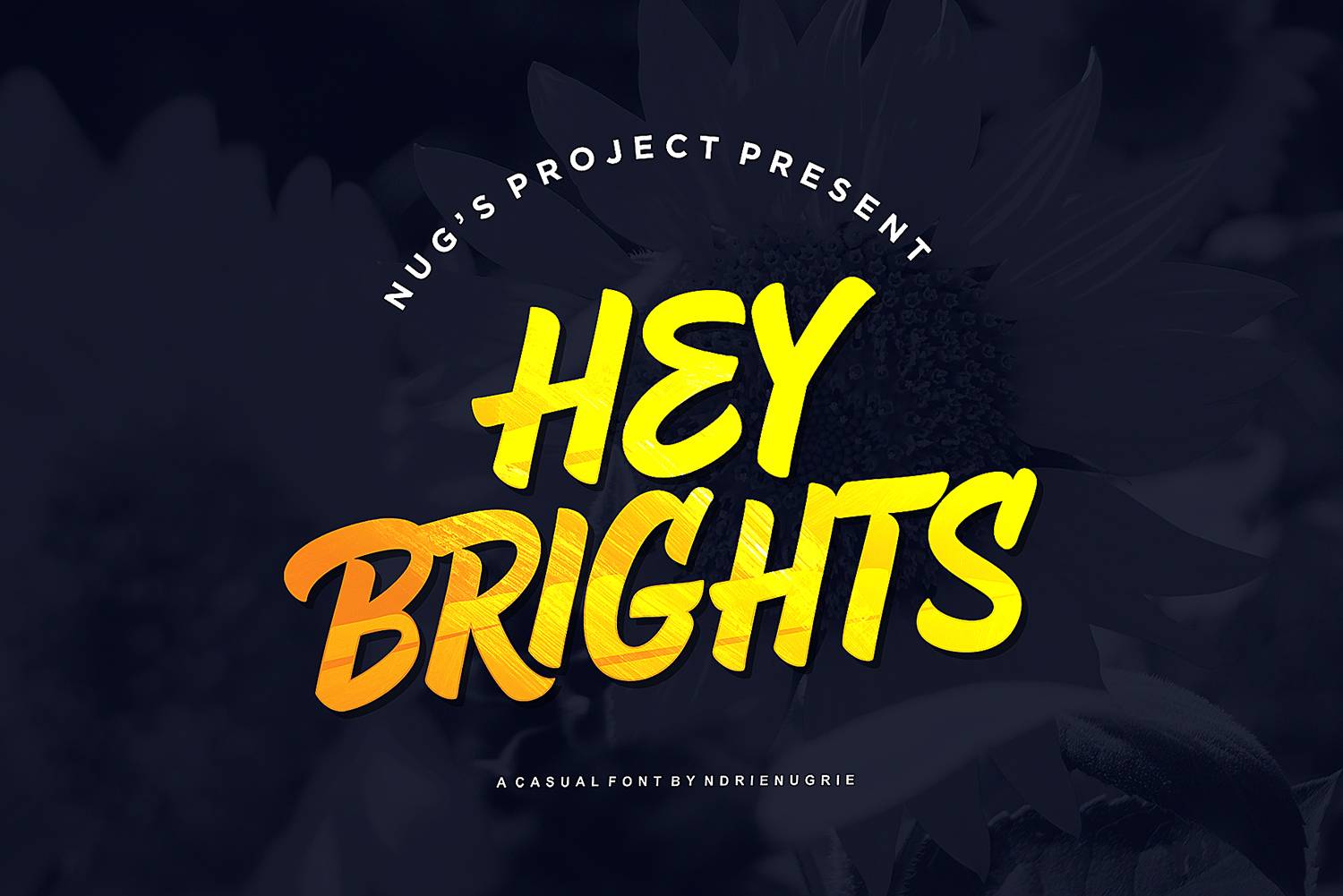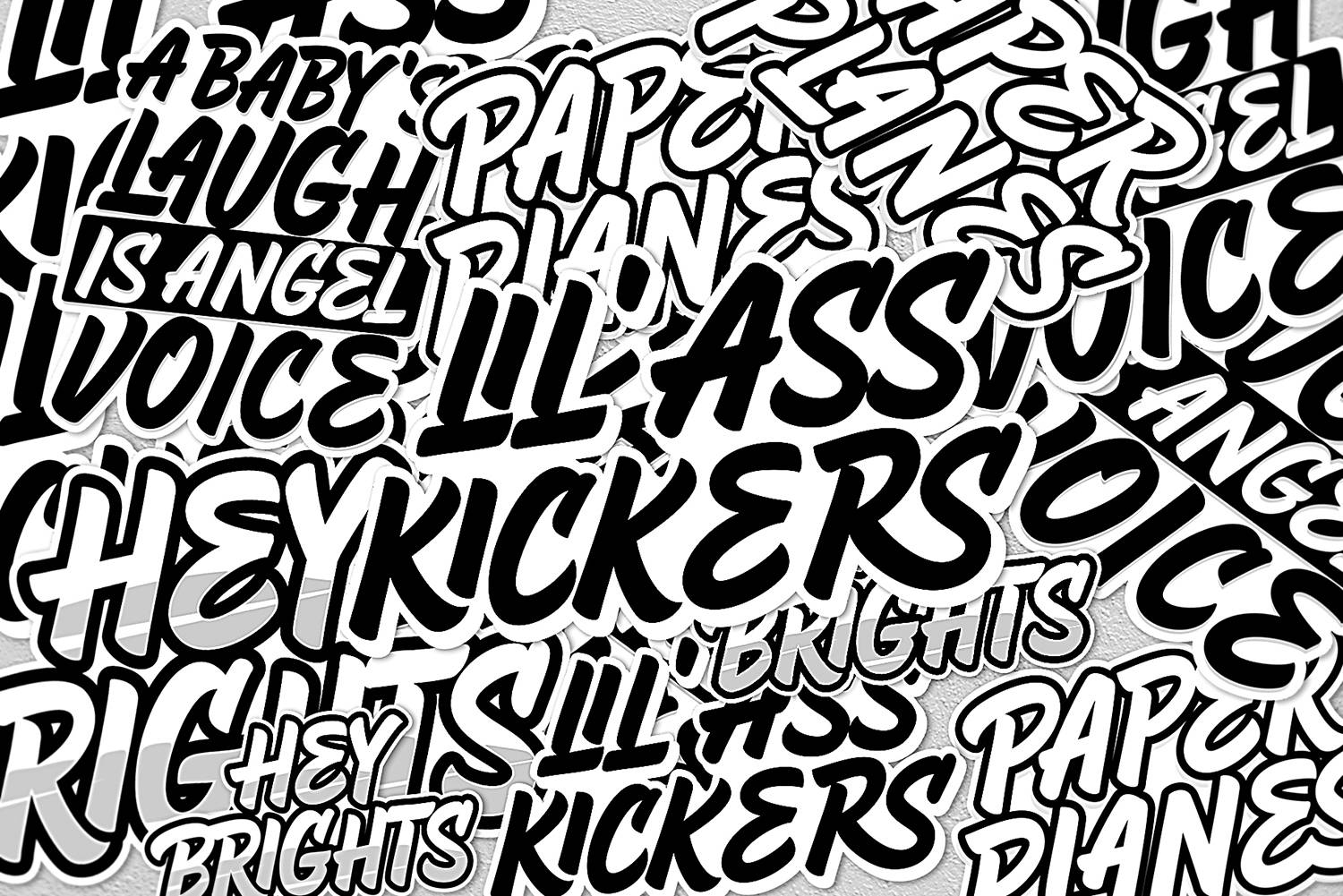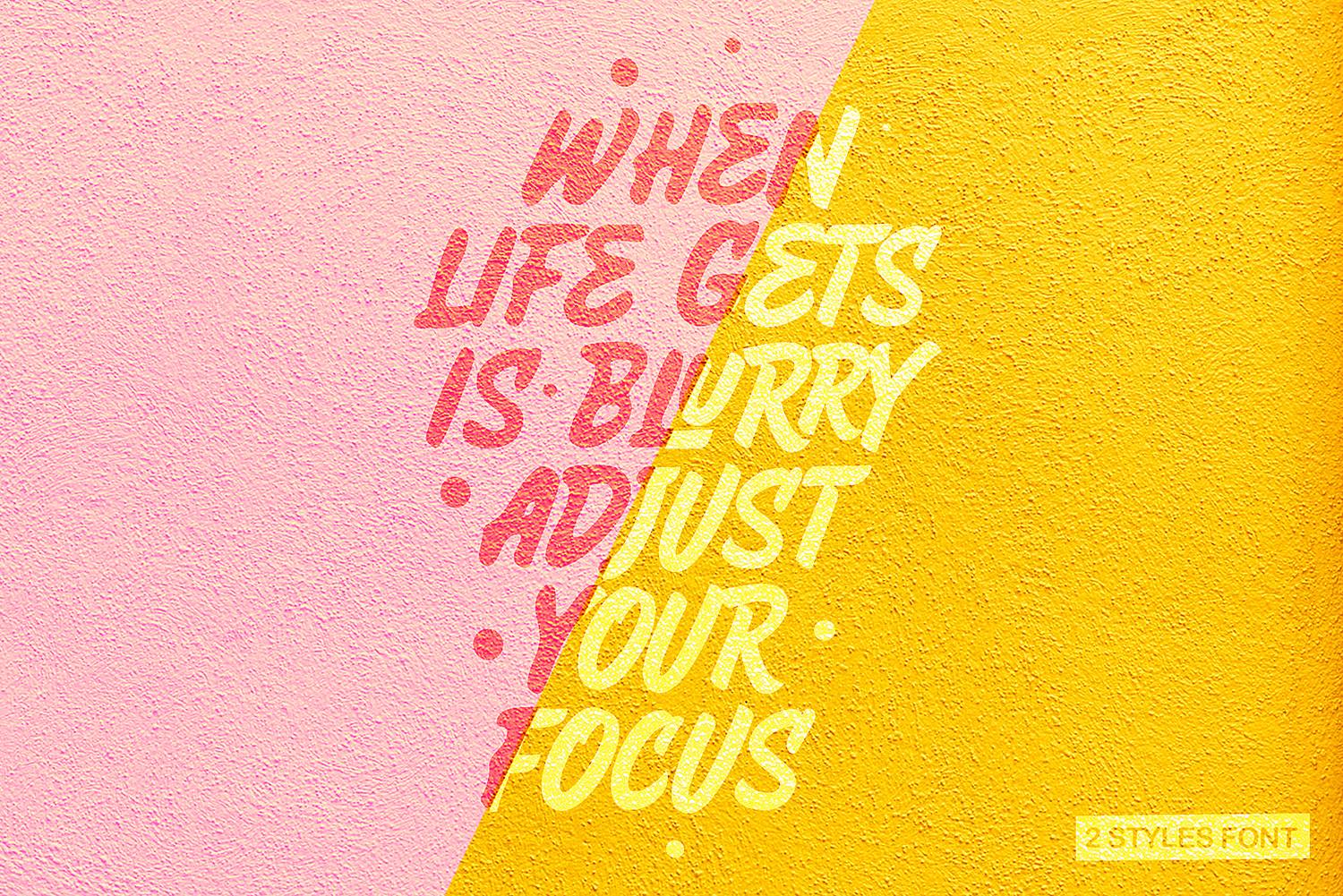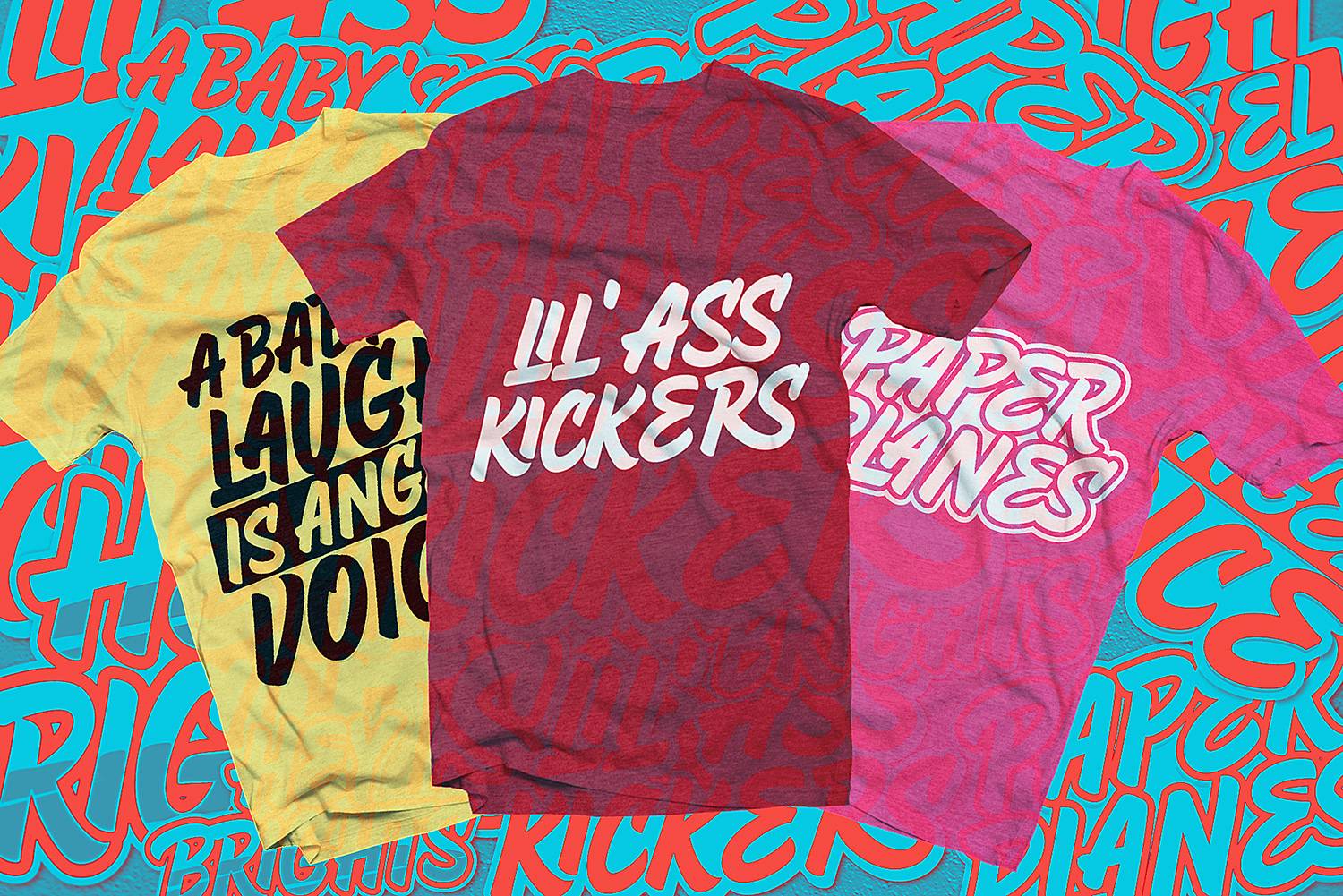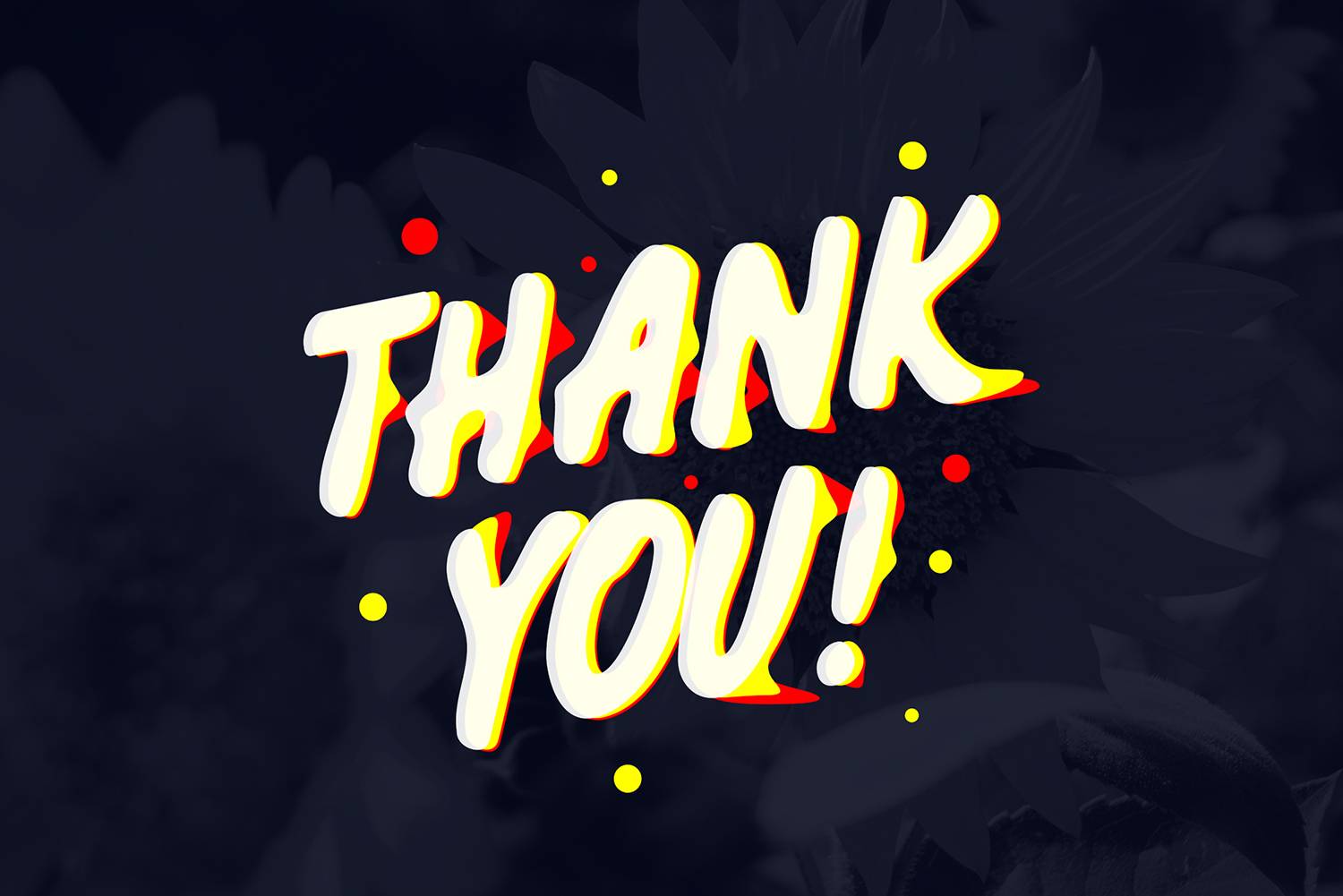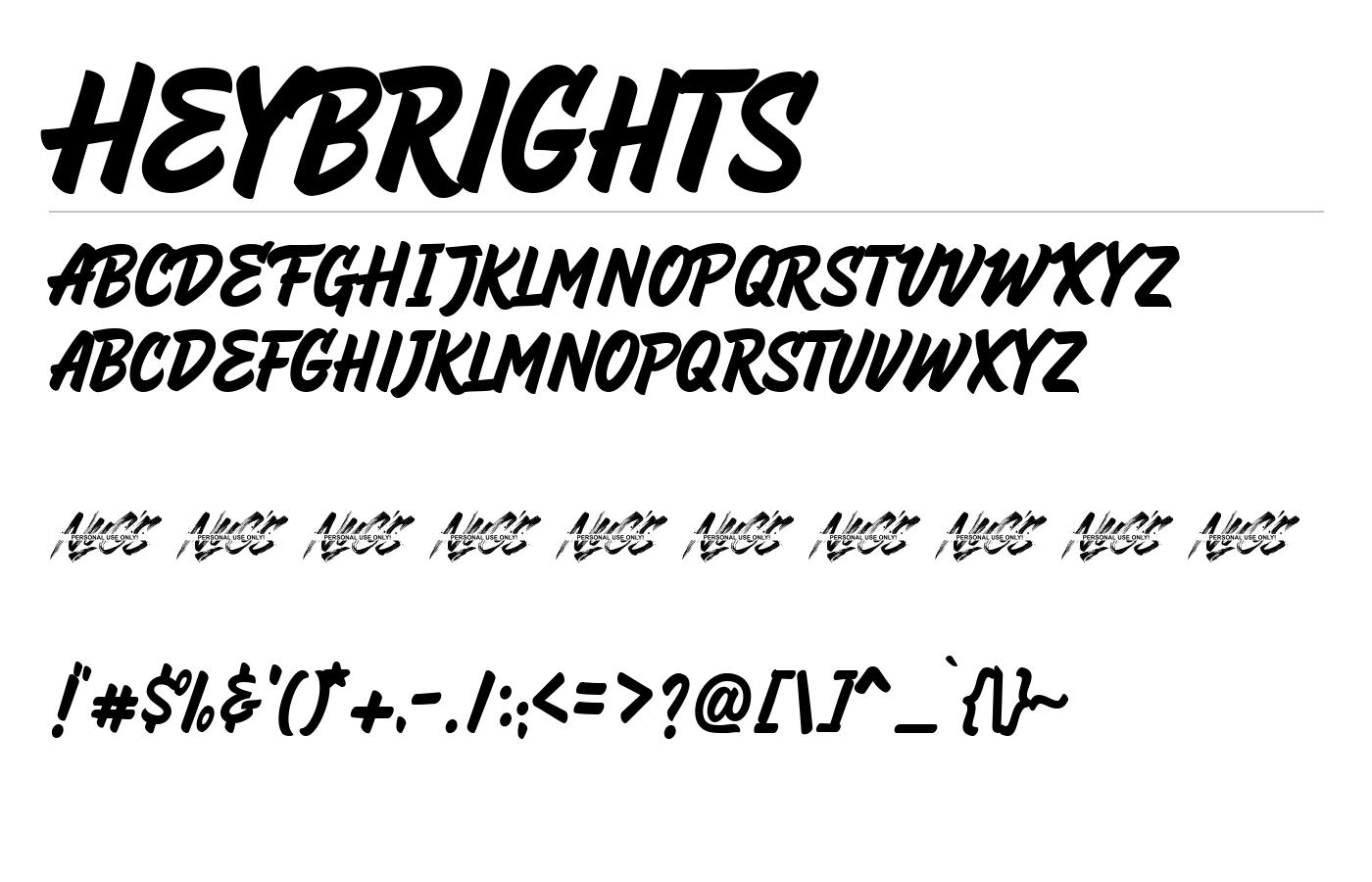
Hey Brights is a bold, energetic script font that combines a casual handwritten feel with strong, rounded strokes and a slight slant, giving it a dynamic and approachable character. Its thick weight and flowing letterforms make it perfect for eye-catching headlines, branding, and creative projects that seek a friendly yet confident vibe. This font works well in modern designs aiming to communicate warmth and personality while maintaining clear readability.
Hey Brights Font
About Hey Brights Font
| Font family | Hey Brights Font |
| Release date | 2019-07-21 |
| Designer | Andrie Nugrie |